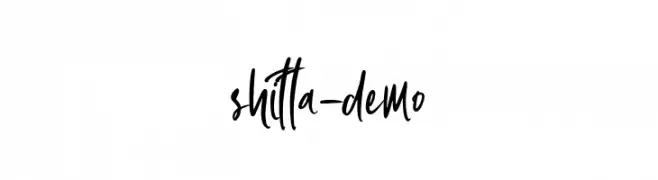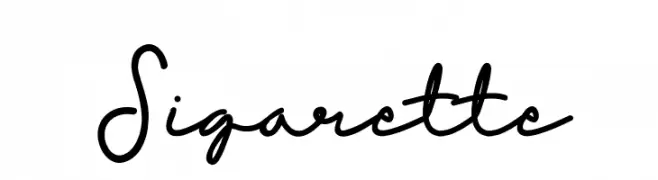
A decorative font with elongated, flowing swashes and a calligraphic style.
A dynamic and expressive handwritten font with fluid, cursive strokes.
A bold, distressed font with a rugged, vintage appearance.
A dynamic, flowing script font with elegant cursive letterforms.
A playful, bold font with a hand-drawn, casual style.
An elegant, flowing script font with a handwritten style.
A playful, casual script font with smooth, flowing lines and a handwritten feel.
A sophisticated script font with elegant curves and intricate details.
A dynamic, flowing script font with elegant, connected letterforms and a handwritten appearance.
A casual, handwritten font with a lively and flowing style.